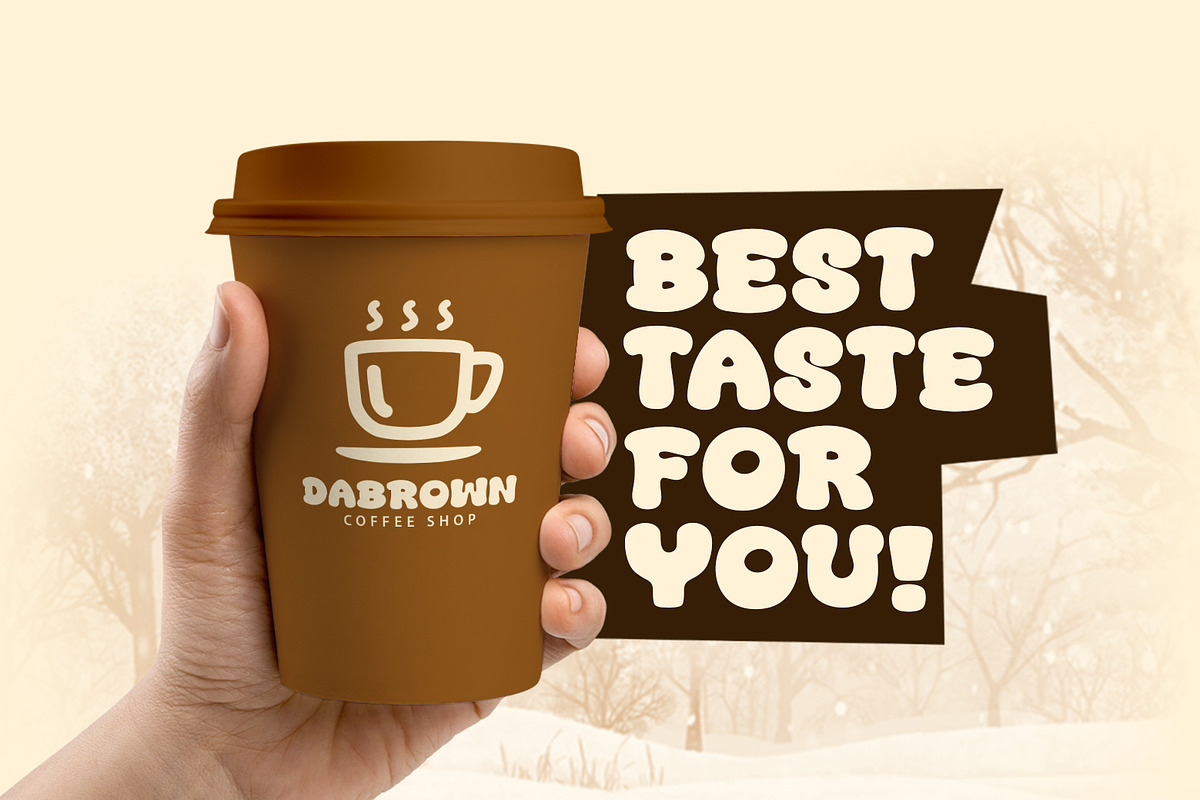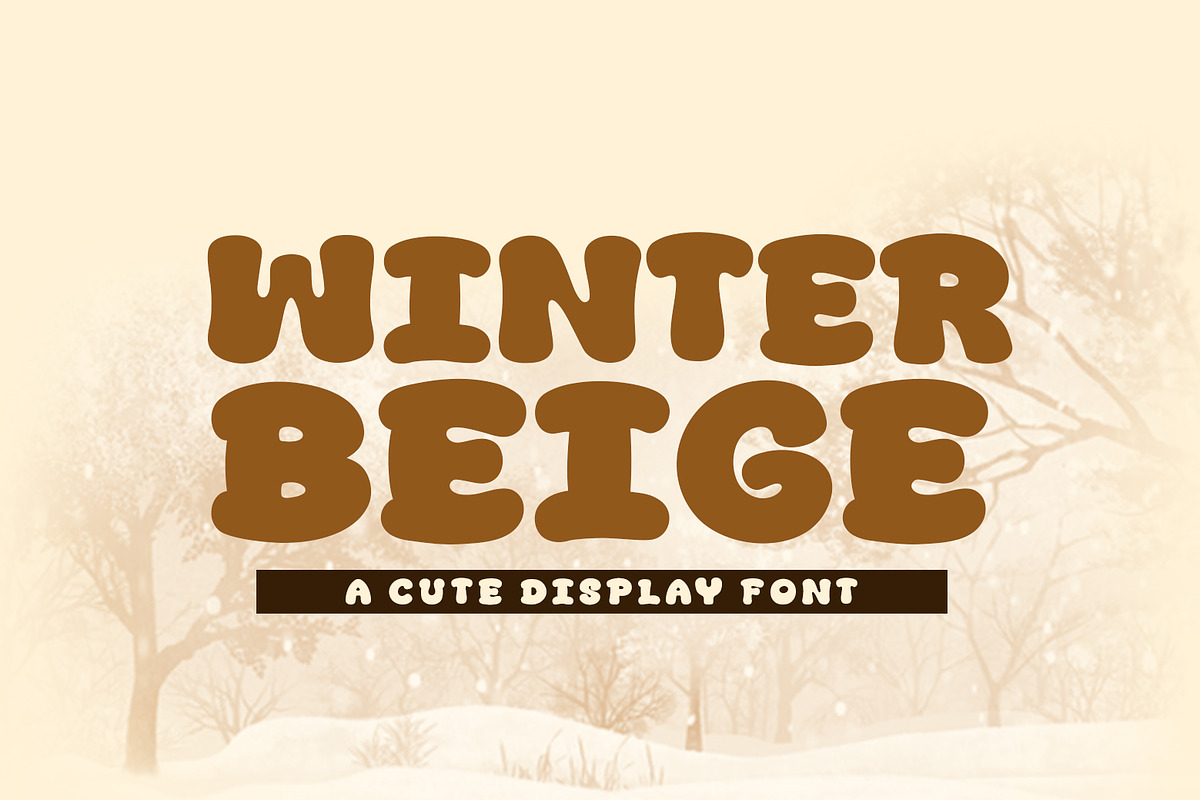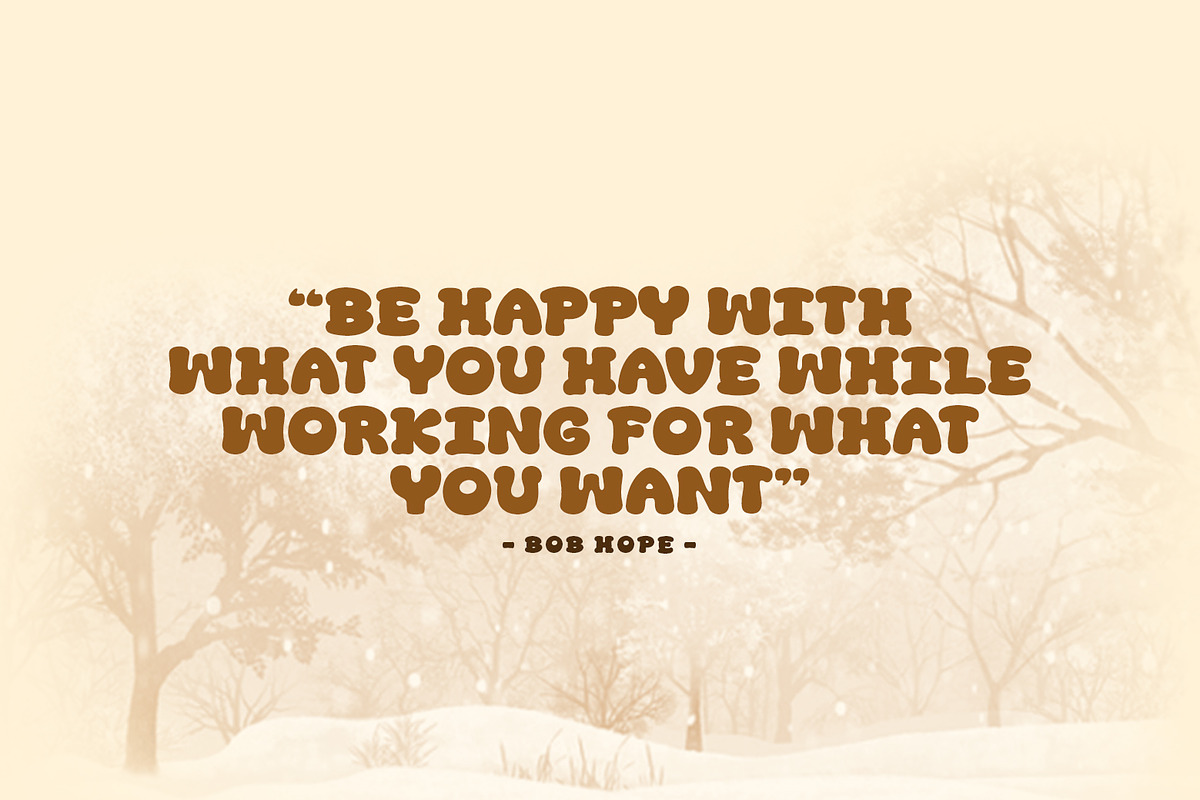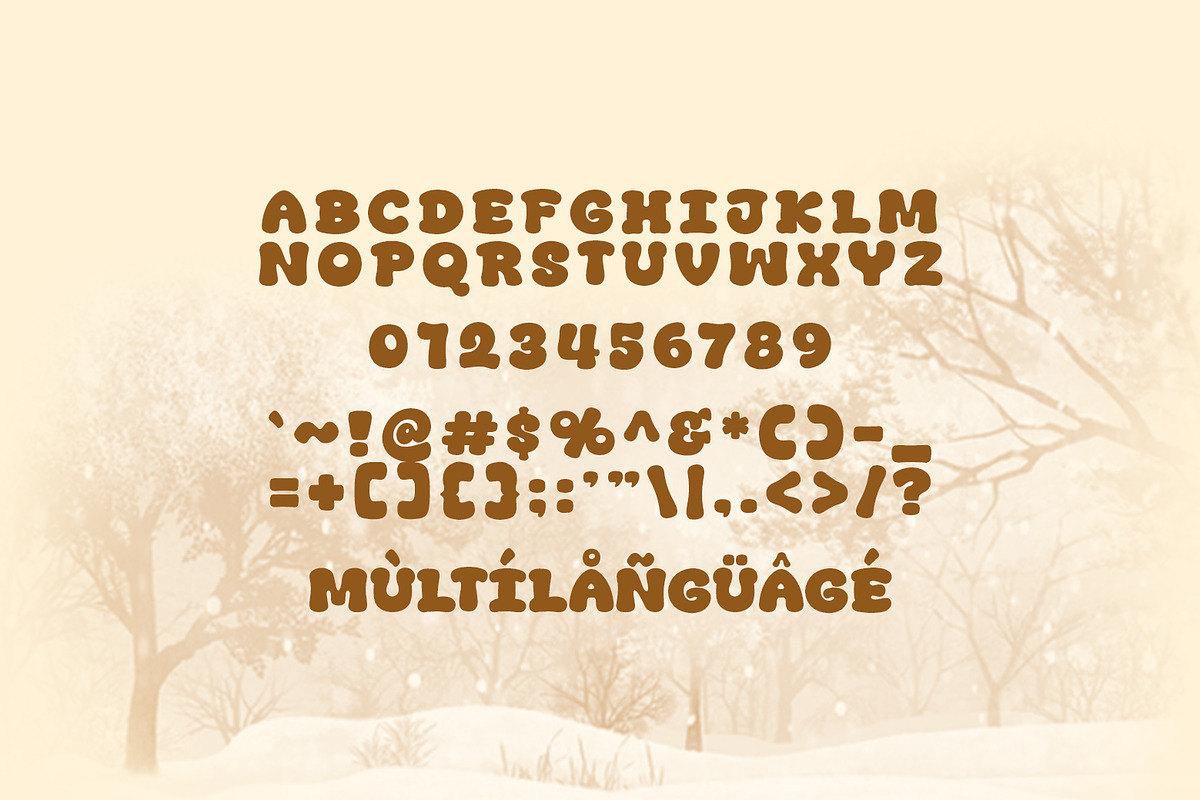
Winter Beige
Introducing, Winter Beige font a fun display typeface with cheerful theme for your fun project. Winter Beige font suitable for logo, branding, greeting card, poster and any design that you create.